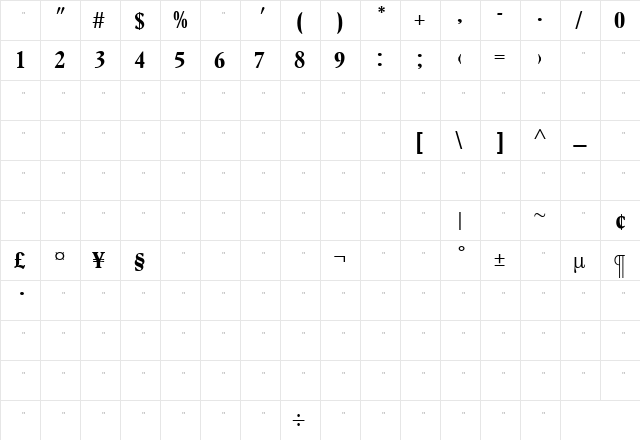
LeightonBoldCondTab Medium Font Preview
Design Context for LeightonBoldCondTab Typeface
LeightonBoldCondTab offers clean, dependable letterforms without strong stylistic allegiance, making it a practical choice for designers who need flexibility. Its bold stroke weight gives it real presence on the page. The condensed width makes it efficient for tight spaces without sacrificing legibility.